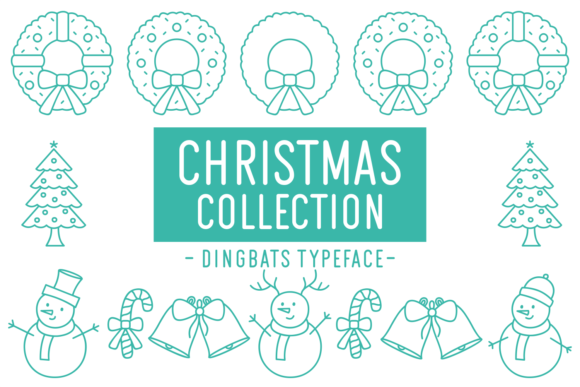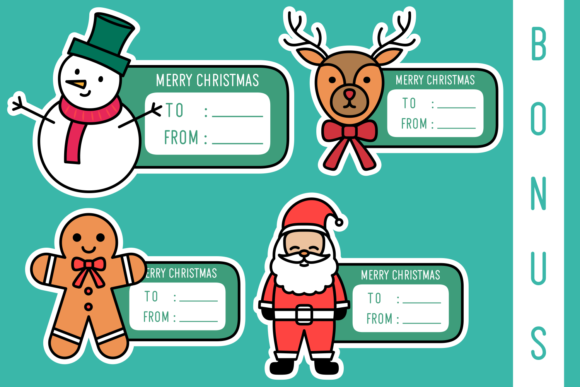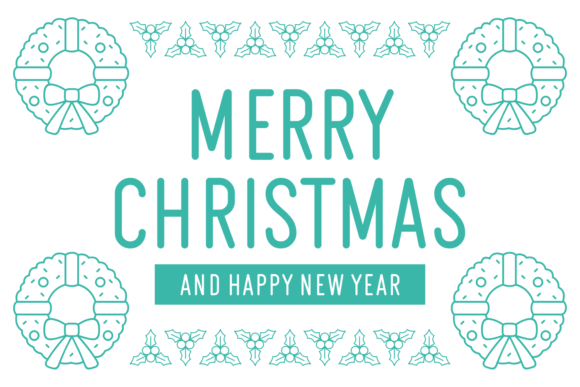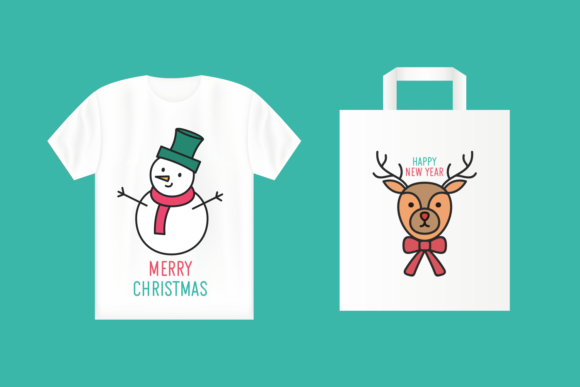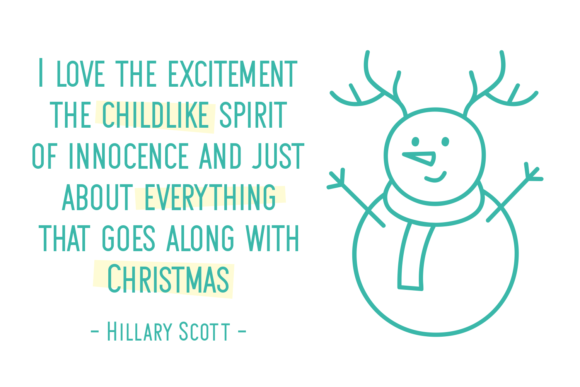
Get Ready to Deck the Halls with the Perfect Font
It’s the most wonderful time of the year – the moment when you start brainstorming ideas for your holiday projects. As you flip through your design software, you can’t help but feel a twinge of excitement and a dash of inspiration. But, have you ever felt like something’s missing – that special je ne sais quoi that takes your designs from meh to merry?
Enter the Christmas Collection Font, a sweet, festive, and warm dingbats font that’s sure to bring your winter wonderland designs to life. With its whimsical characters and playful flair, this font is the perfect companion for any holiday project, from greeting cards to website headers. Whether you’re a seasoned pro or a design newbie, the Christmas Collection Font is a valuable addition to your toolkit – it’s the key to unlocking your full creative potential and making this holiday season one to remember.
Key Features of Christmas Collection Font
- Unique Characteristics: Includes festive holiday icons, ornaments, and decorations, making it perfect for holiday-themed designs
Review of Christmas Collection Font
Overall, I’d say the Christmas Collection Font is a delightful addition to any holiday design project. It’s perfect for creating a festive atmosphere and can be used in various applications, from greeting cards to social media graphics.
Here’s what works well: ✨ The font has a unique and playful style that captures the essence of Christmas. It’s available in various weights, making it easy to use in different contexts. The character set is comprehensive, including a wide range of symbols and icons that can be used to create engaging designs.
The limitations of this font are: ⚠️ While it’s perfect for holiday-themed designs, it may not be the best choice for everyday use. The font’s style is quite festive, which might make it look out of place in non-holiday contexts. Additionally, some characters may not render correctly in certain font sizes or styles.
Here are some specific features that work well:
- Unique and playful style
- Comprehensive character set
- Available in various weights
- Perfect for holiday-themed designs
Overall, I think the Christmas Collection Font is a great choice for designers looking to create festive and engaging holiday designs.
For the best results, use the Christmas Collection Font in conjunction with festive graphics and colors.
– Creating holiday greeting cards
– Designing festive social media posts
– Making personalized gift tags
– Developing holiday marketing materials
Great Vibes is a modern and elegant script font, perfect for adding a touch of sophistication to your holiday designs. It’s ideal for use in titles, headings, and other prominent text elements. Great Vibes is a great alternative to Christmas Collection Font for designers who want a more refined and luxurious look.
Comparison to Christmas Collection Font: While Christmas Collection Font has a more playful and festive feel, Great Vibes is more understated and elegant. Great Vibes is a better choice for designers who want to create a more subtle and sophisticated holiday design.
Carolyna Pro is a beautiful and elegant serif font, perfect for use in holiday designs that require a more classic and sophisticated look. It’s ideal for use in body text, titles, and other text elements where a more refined and elegant look is desired. Carolyna Pro is a great alternative to Christmas Collection Font for designers who want a more timeless and sophisticated holiday design.
What is the recommended font size for using the Christmas Collection Font?
The Christmas Collection Font is designed to be used at font sizes ranging from 12px to 48px. Using font sizes outside of this range may affect the font’s legibility and overall aesthetic.